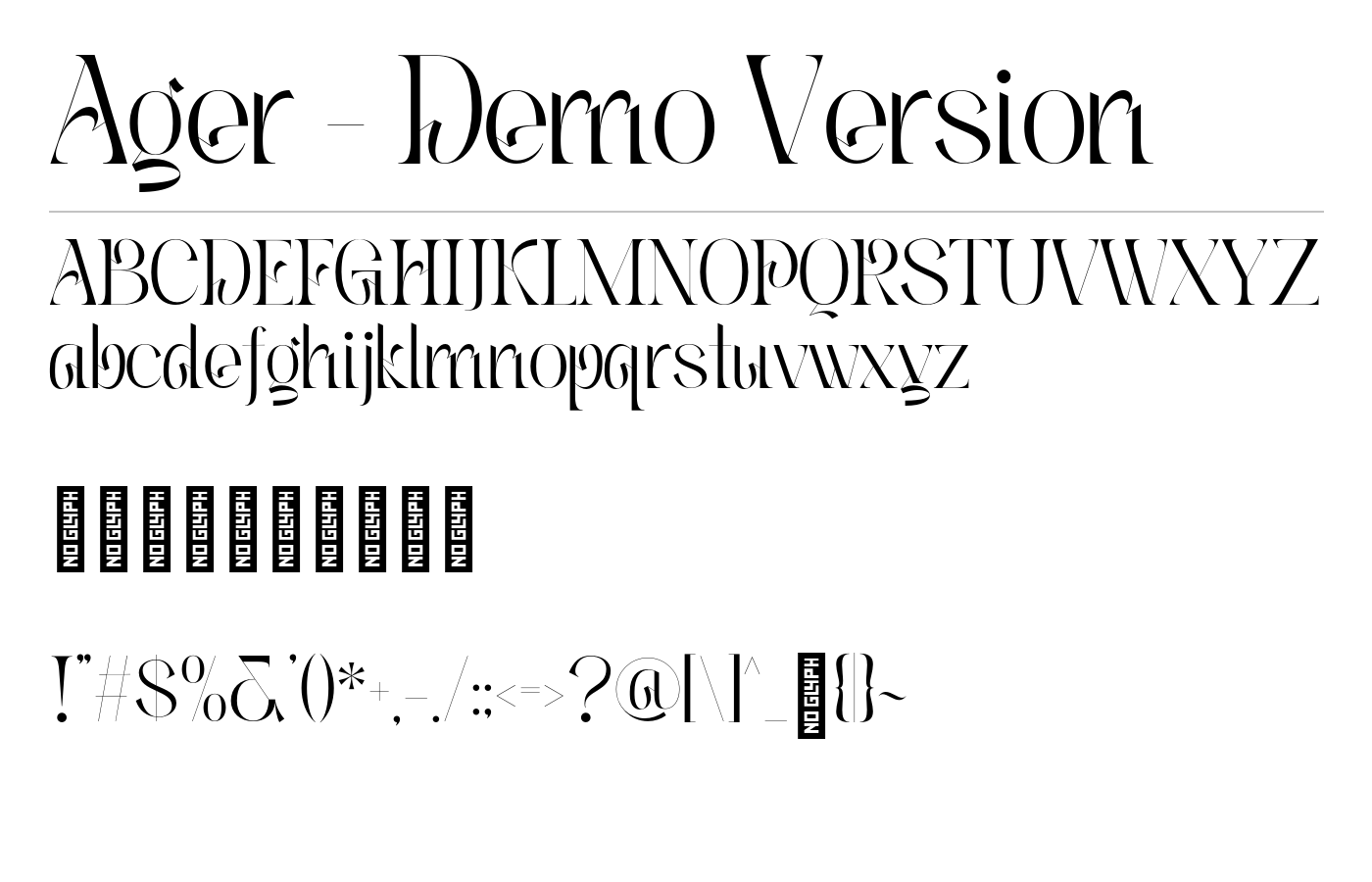
Ager is a stylish serif font with a high-contrast, modern flair, featuring thin, delicate strokes combined with sharp, angular serifs that convey elegance and sophistication. Its unique letterforms, such as the single-story ‘a’ and ornamental details on letters like ‘g’ and ‘Q,’ give it a distinct, artistic personality perfect for luxury branding, fashion editorials, and upscale headlines. This font works best in designs that require a refined, expressive look with a touch of contemporary glamour.
Ager - Demo Version Font
About Ager - Demo Version Font